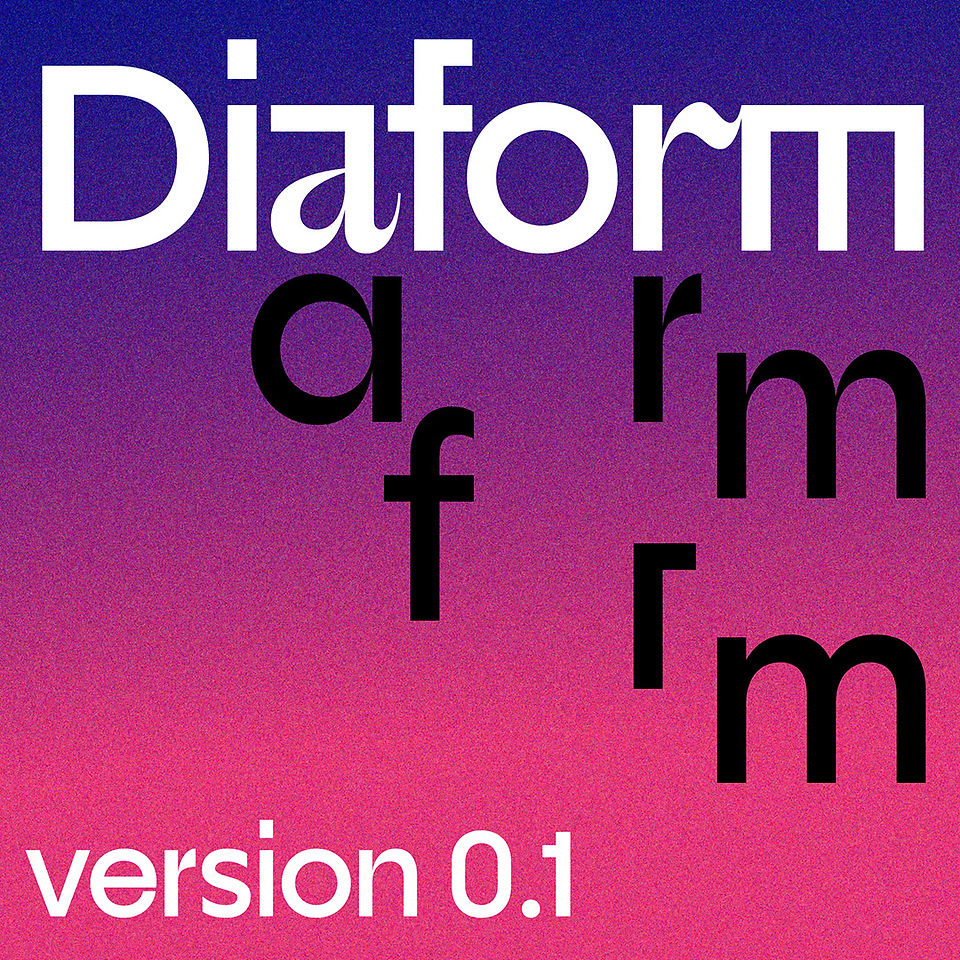
Interview with Alex Slobzheninov
Alex is a designer based in Prague, Czech Republic. He studied graphic design at Ladislav Sutnar Faculty of Design and Art, University of West Bohemia, after which spent a year doing branding at &Walsh studio from NYC. These days Alex focuses on designing typefaces, making tools to optimize the process and runs @ContemporaryType page on Instagram. He is part of Pangram Foundry, Future Fonts and Type Tomorrow and a co-organizer of InScript type festival. Alex has won TDC Ascenders, ADC Young Guns, ADC Awards and Modern Cyrillic; judged and talked at Typomania 2021 and gave design workshops; his works have been featured in multiple books and publications about design and type.
Weird Serif
From a functional typeface like Fivo, you’ve evolved your work in a sort of post-modernist design approach, with fonts like Relaate or Weird Serif that reappropriate traditional design elements while playfully embracing contemporary aesthetics. How do you see your work in the balance between experimentation and the need to follow functionalism and readability rules?
Fivo Sans was my first typeface, so it’s pretty basic and different from how I approach type design now. Take the two extremes: on one end, there are wild rule-breaking display fonts where anything is possible; on the other end, there are conventional typefaces strictly following historical norms. To my taste, designing the former is too brutal and latter is too boring, but the tension between them is what makes typography fascinating. It’s a play between familiarity and novelty, expectations and surprises. One of my current methods of finding the balance is taking unusual ideas — the more unusual the better, I suppose — and making them look as normal as possible, finding a good place on that spectrum.
Take Weird Serif, for instance: it’s a typeface based on the idea of serifs hanging down in the corners of letters like V. You have hardly ever seen such serifs elsewhere, but I wanted it to feel normal, almost like it has been the norm for centuries. Similarly, Relaate lean towards the strange side of that range. On the other hand, the Right super family is tuned to be more usual and multi-functional, albeit quirky in details.
The debate about font readability seem to be endless in the design community. I always want my typefaces to be readable and legible.
That’s part of the challenge: make sure the reader doesn’t have problems with reading the text, but experiences it with some delight.
Diaform typeface
What drives you to go into experimental shapes? Is it for purely aesthetic reasons? On Contemporary Type you dedicate a lot of interest to experimental aesthetics...
Pushing the boundaries of what is possible, exploring new software tricks and coming up with new visual treatments is how the industry evolves, in my view.
Most commercial projects are largely repetitive, which of course has to be that way to some extent, so that customers could relate to the brand. Self-initiated works, however, barely have such restrictions and can go crazy in attempt to grab more social media attention.
Then that outcome feeds into client works, making brands more fun.
"Apparently, not everything that works in your head or even looks doable on paper, actually works when you transfer it onto screen."
For the 2021 “36 Days of Type” challenge, you decided to design a whole font every day. This tour de force you made questioned heavily the commonly accepted development timeframe for typefaces, which in the past could be months or even years. What did you get from this experience? Where you satisfied by the results?
I would say first that for me a proper typeface still takes months, probably even years, to be finished. It’s still a long process that I’m trying to optimize and doing the 36 Days of Type was a part of that. It was a study of the process; the tools; how you come up with ideas, drop some, proceed with others. Of course, all these one-day fonts from 36 Days of Type were pretty raw. They kind of look ok on Instagram, but far from being ready for any serious use. That wasn’t the point though; making them in such bootcamp conditions forced me to learn prioritizing, look for shortcuts, avoid redundant steps and gave no time to overthink or nitpick. Also, there’s a big difference between ideas on paper — I have a lot of those — and digital fonts that you can type with, even if they are sketchy. Apparently, not everything that works in your head or even looks doable on paper, actually works when you transfer it onto screen. A few people also interested in challenging themselves have asked me for advice, which is this: don’t draw the whole alphabet and do it maybe once or twice a week.
"The way I approach it, at least at the moment, is by taking weird ideas and making them look as normal as I can."
Both with your work on IG with Contemporary Type and your role in the Inscript festival show a passionate attention towards cutting edge and experimental typography. What do you think is the most interesting direction in the field?
I would, maybe surprisingly, say motion typography. Of course, it’s not a new genre per se, but I think it evolves in pretty interesting ways. If you look at motion typography from 10 or 20 years ago, it’s certainly not what it is now. Thanks to today’s higher-res screens, advanced software, faster internet and more computing power, there’s plenty of new ways to captivate the audience with animated or interactive letters. It’s already practical and has a clear commercial value for the clients, so among other hyping areas I’d bet on good old motion type. Then there are newer things like augmented and virtual reality, which was trendy a few years ago. At the time I was intrigued by it; it seemed like augmented reality type could become the Next Big Thing…
But now it’s almost nowhere to be seen anymore. Perhaps, AR/VR got overshadowed by AI, the Next Big Thing For Sure. This time I’m curious where its ceiling is, because the technology is still experimental and limited. Sure, now anything you make with AI is cool: it’s a collaboration between a human and a machine, or rather a fast way to get a seemingly plausible result; that’s new and gets attention for now.